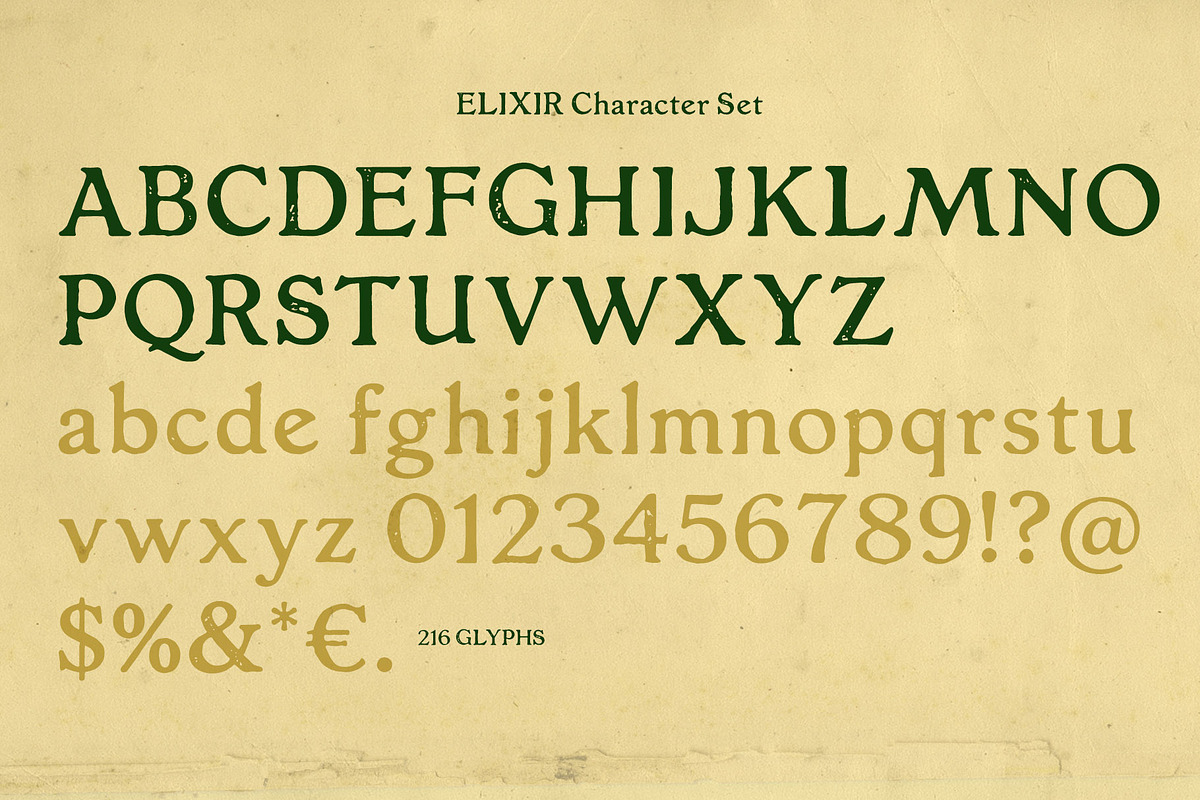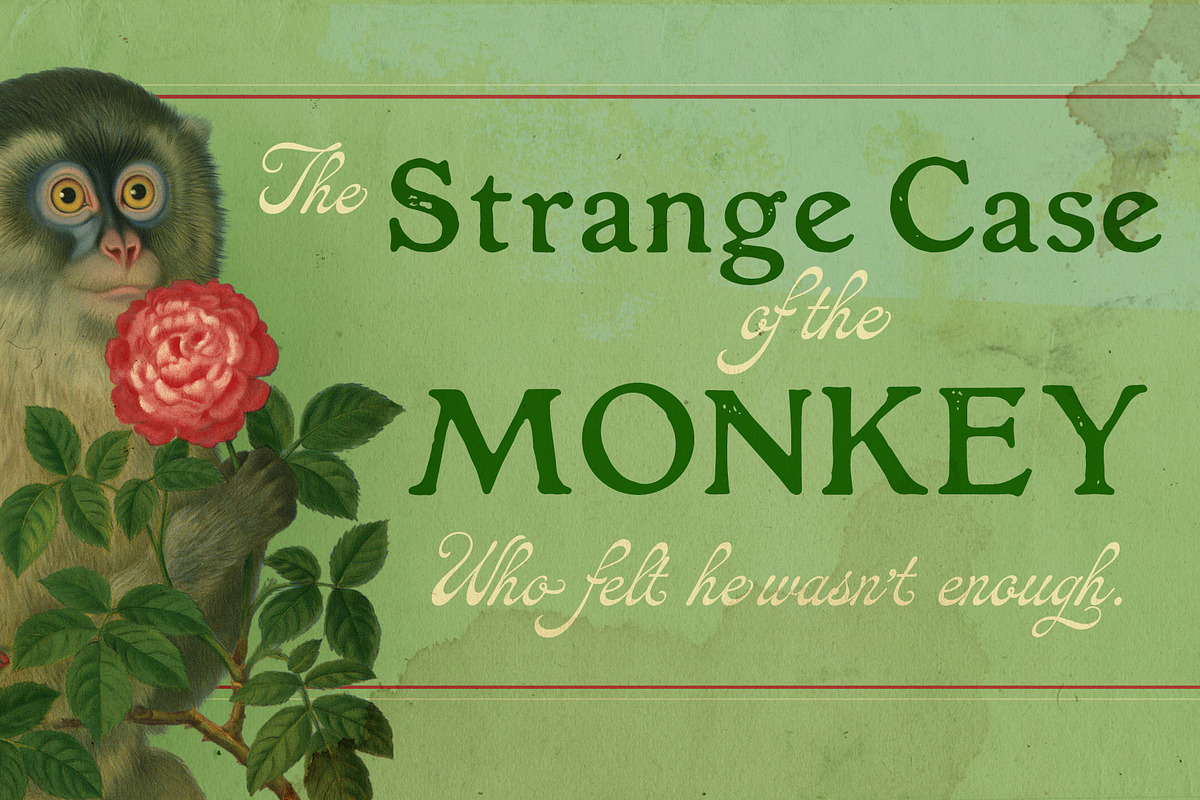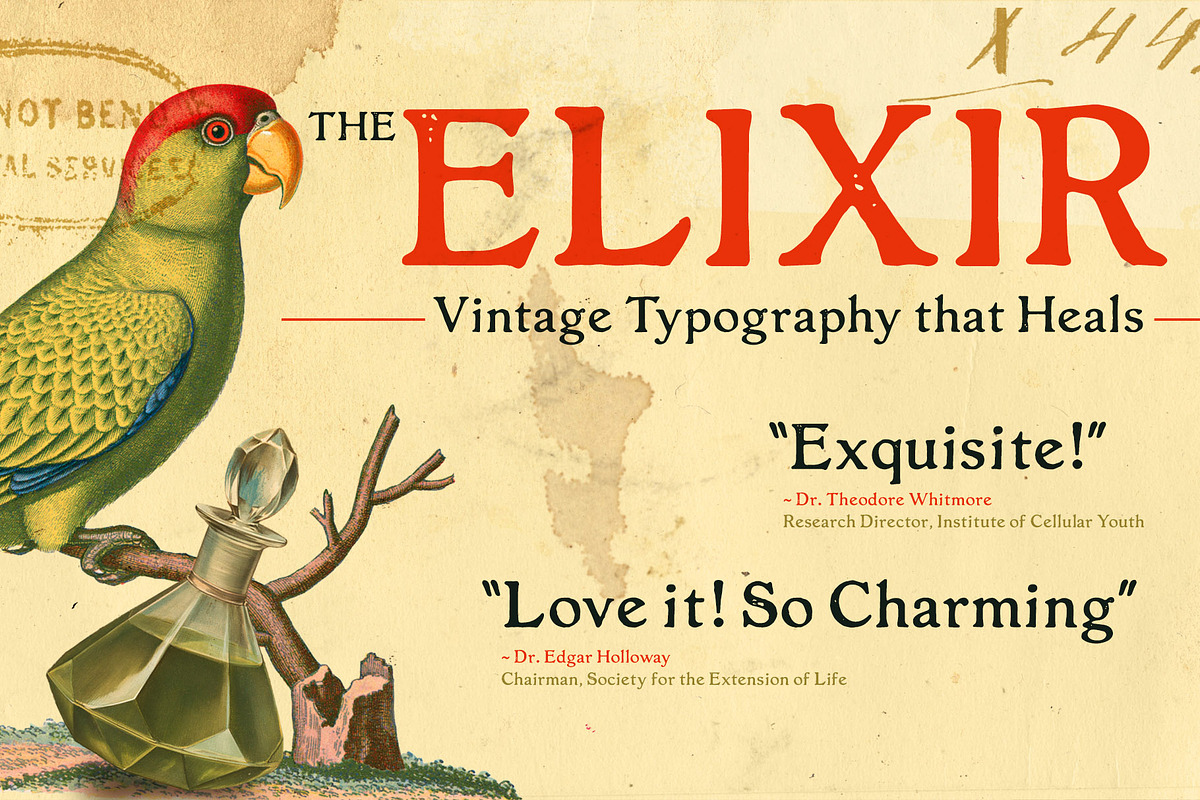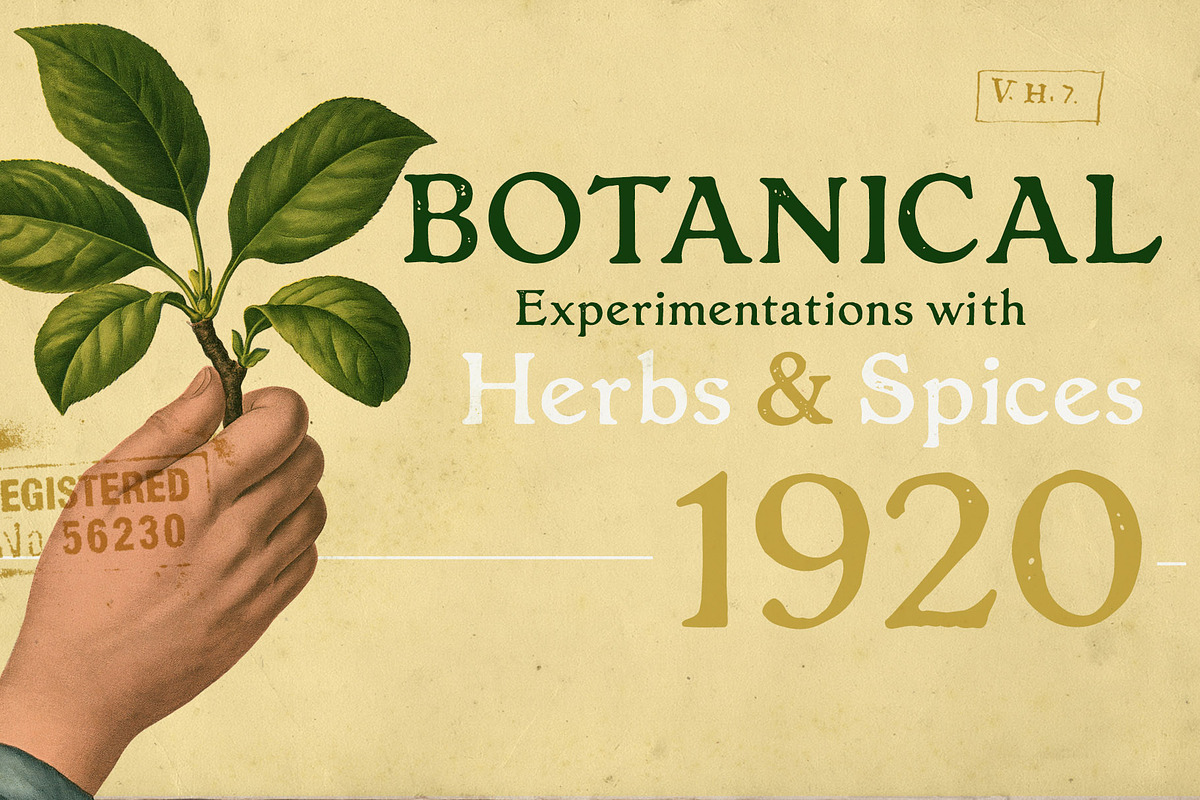
The Elixir
The Elixir is a vintage serif typeface inspired by old medicine labels, apothecary bottles, and packaging from the late 19th and early 20th centuries. Its classic proportions and subtle distressed details recreate the gentle imperfections left by time, giving each letter a natural, aged appearance without compromising readability. One of its most distinctive characteristics is its unconventional one-sided serifs, which depart from traditional serif construction and give the typeface a unique personality. The result is a font that feels authentic, elegant, and full of character.
The Elixir includes uppercase and lowercase characters with a total of 216 glyphs, making it suitable for a wide range of vintage-inspired projects. Whether you're designing labels, packaging, posters, book covers, branding, or editorial work, it brings the charm and warmth of antique typography to your designs.